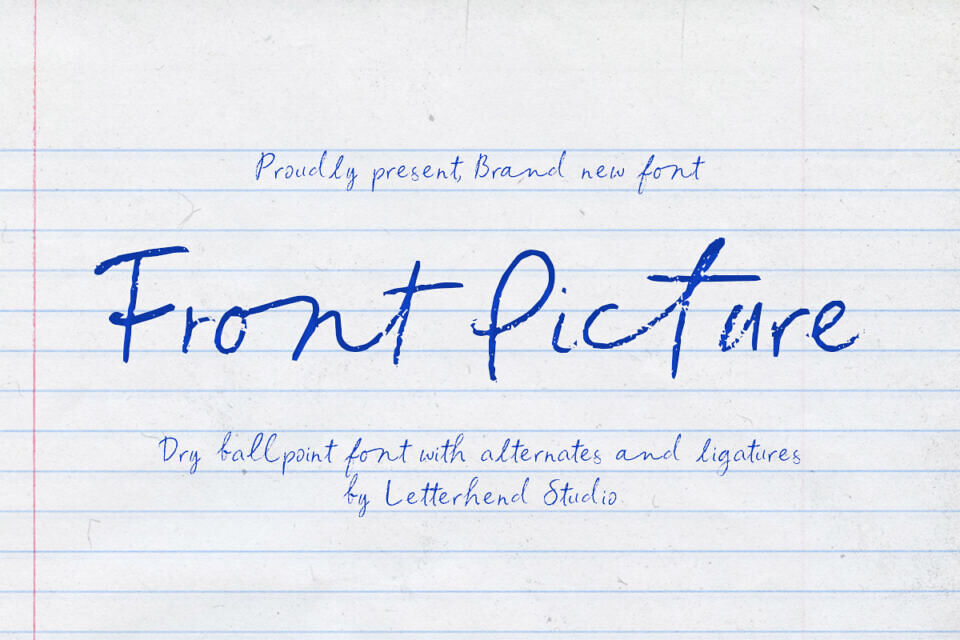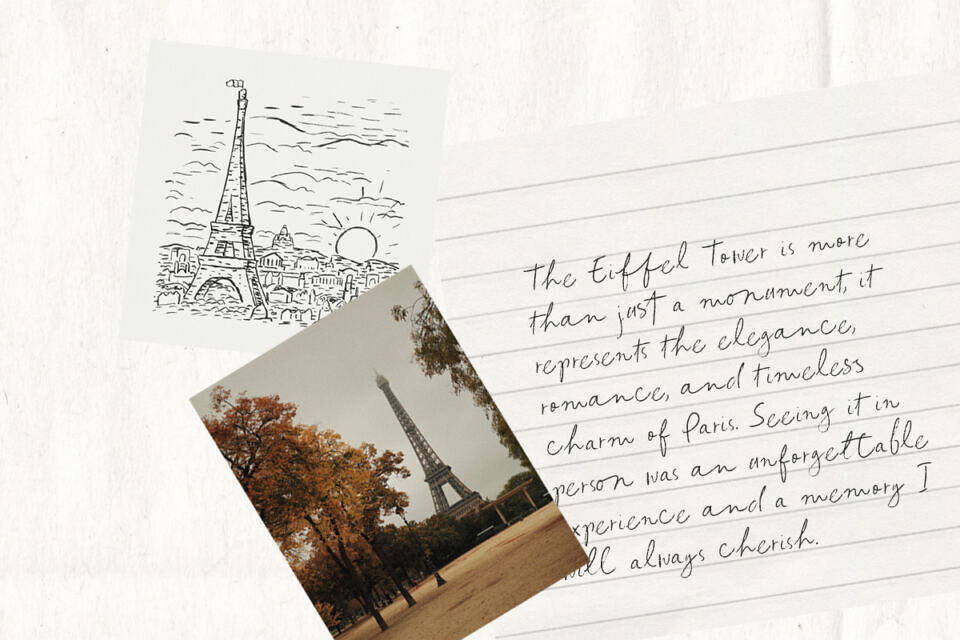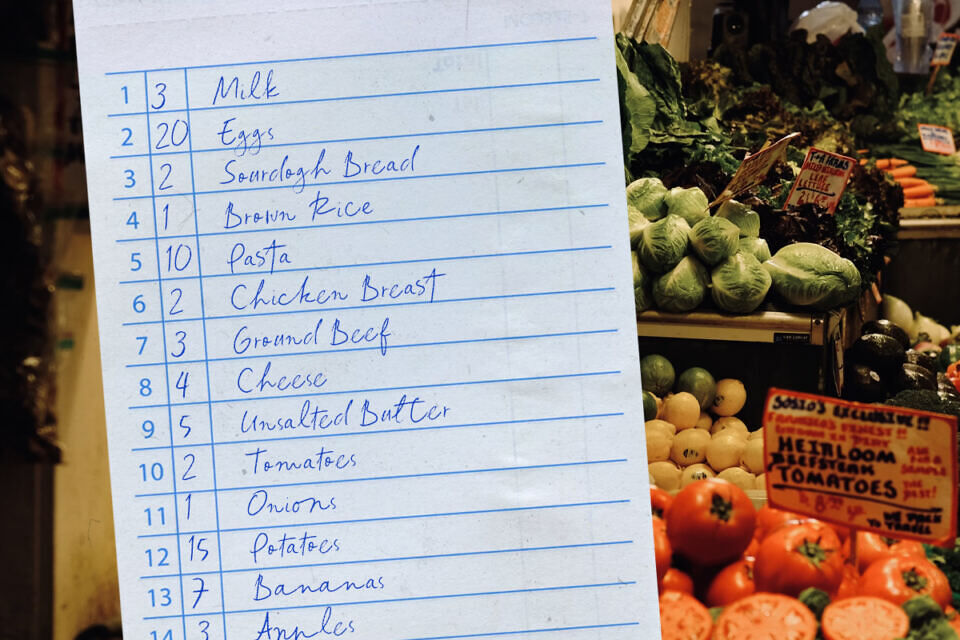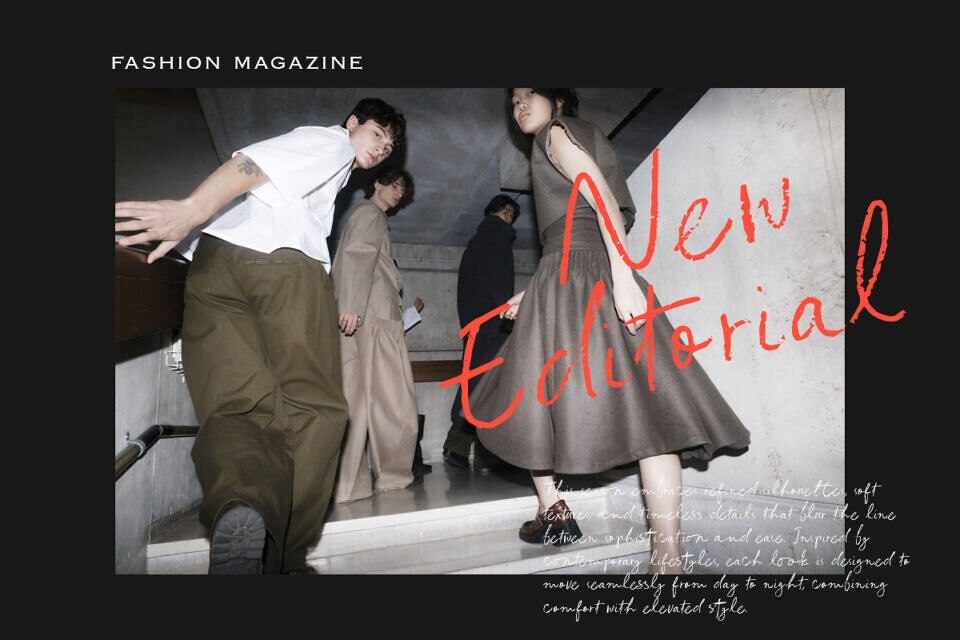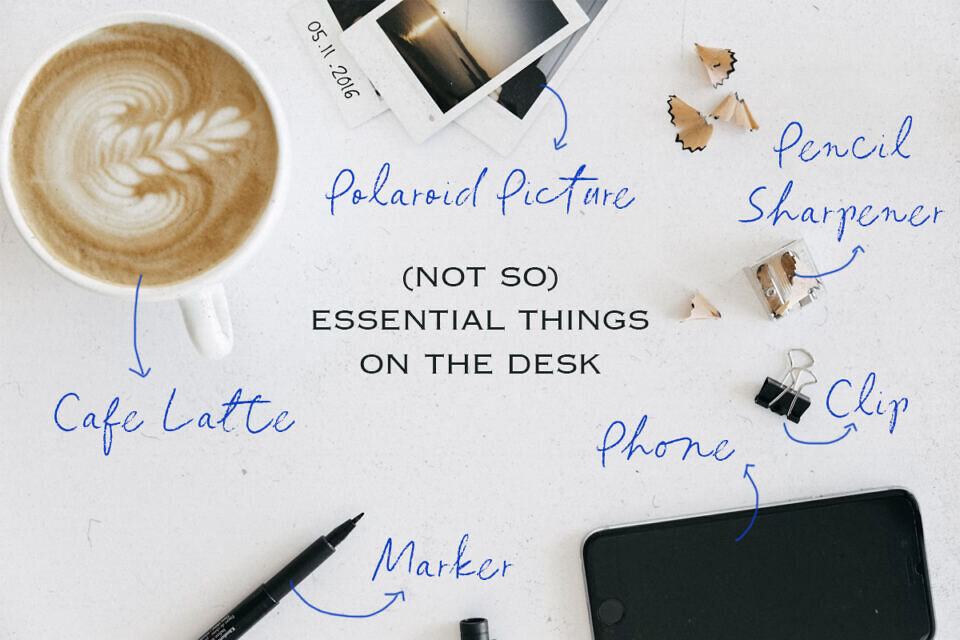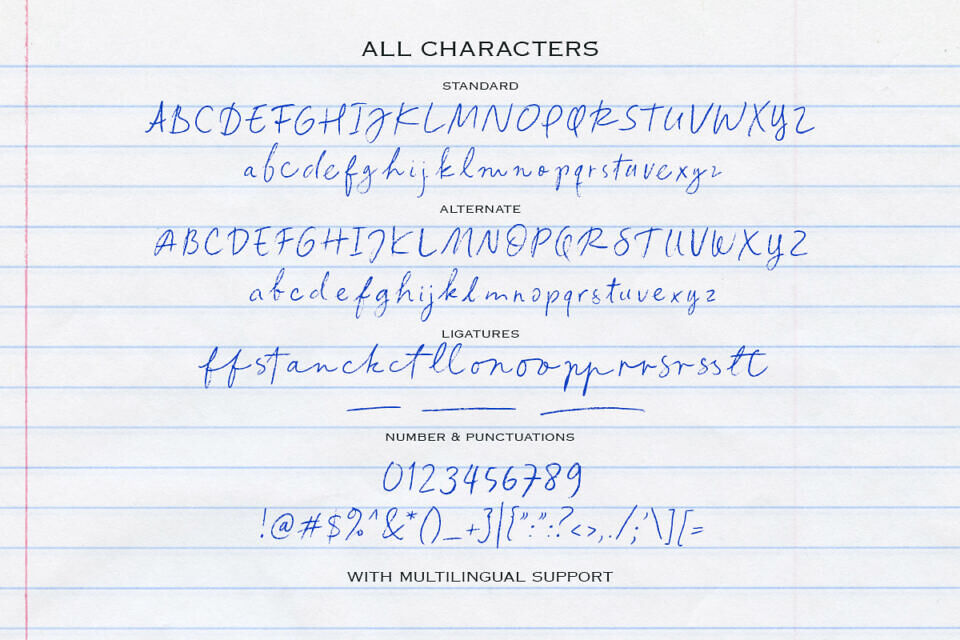
Front Picture captures the familiar charm of quick notes scribbled in the margins of a notebook, blending the texture of a dry ballpoint pen with a relaxed, natural flow. Its slightly rough strokes, uneven pressure, and authentic handwritten rhythm give every word the feeling of a real thought captured on paper.